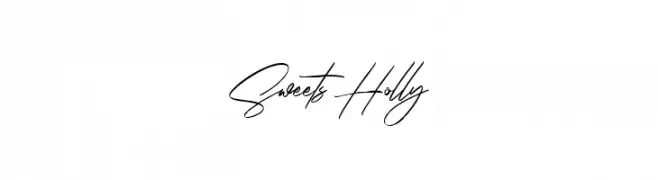
( Fonts by Maulana Creative )
A bold, energetic script font with a lively, handwritten style.
( Fonts by Maulana Creative )
A modern handwritten script font with fluid, elegant strokes.
( Fonts by Maulana Creative )
A dynamic script font with fluid, connected strokes and a handwritten style.
( Fonts by Maulana Creative )
An elegant, flowing script font with thin, delicate lines and graceful curves.
( Fonts by Maulana Creative )
A bold, cursive font with a lively and dynamic style.
( Fonts by Maulana Creative )
A bold, cursive handwritten font with dynamic and fluid strokes.
( Fonts by Maulana Creative )
A fluid and elegant script font with interconnected, graceful strokes.
( Fonts by Maulana Creative )
A playful, casual handwritten font with smooth, flowing lines and a relaxed appearance.
( Fonts by Maulana Creative )
A fluid and elegant script font with a handwritten style.
( Fonts by Maulana Creative )
A lively, handwritten cursive font with fluid, connected strokes.